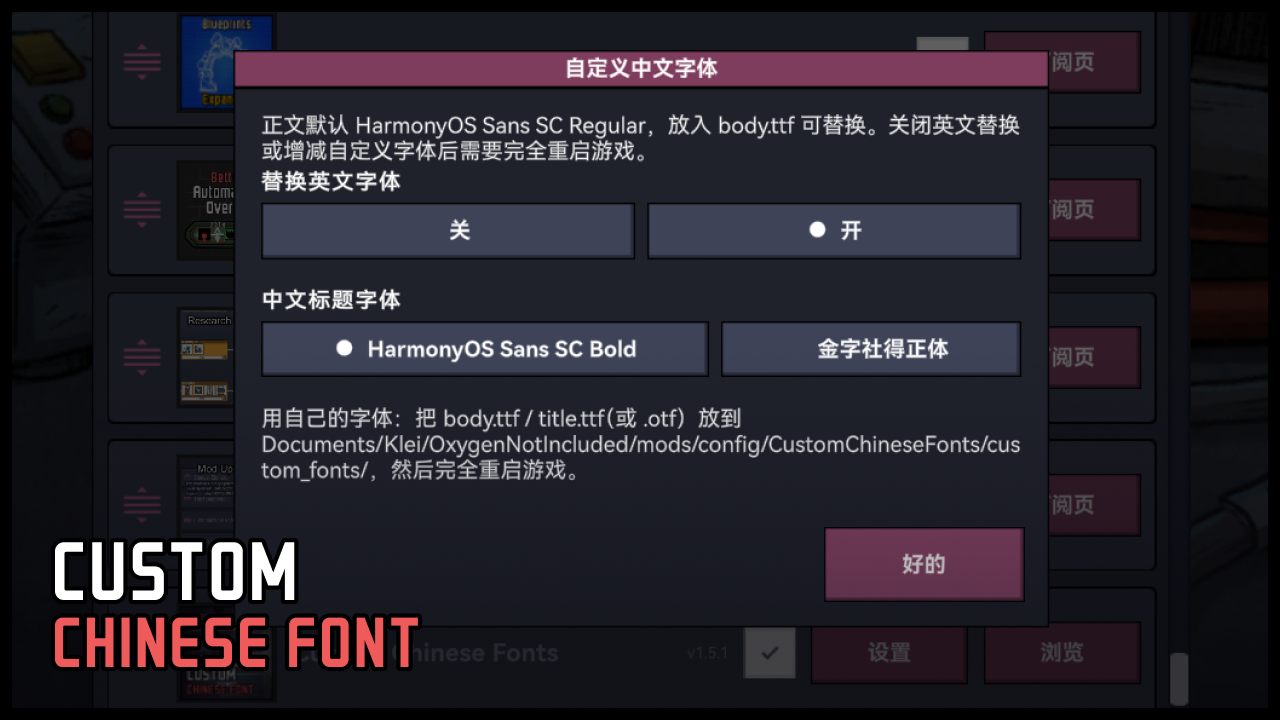
Custom Chinese Fonts
Enhance Your Oxygen Not Included Experience with Custom Chinese Fonts
Immerse yourself further into the intricate world of Oxygen Not Included with the Custom Chinese Fonts mod. This powerful modification allows duplicant colony managers to personalize the in-game text for a more visually appealing and comfortable experience, especially for those who prefer or require simplified Chinese characters.
Tailored Text Options
The Custom Chinese Fonts mod primarily focuses on replacing the default simplified Chinese user interface fonts. At its core, the mod utilizes the sleek and modern HarmonyOS Sans SC font family. This ensures that your colony’s operational logs, research notes, and status updates are rendered with clarity and style.
Key Features at a Glance
- Body Text: Simplified Chinese body text defaults to the clean HarmonyOS Sans SC Regular font.
- Title Text: Titles are presented in HarmonyOS Sans SC Bold by default, offering a clear hierarchy. Additional options, including Jinzishe Dezheng and custom file support, are available via the in-game settings.
- English Font Support: While primarily focused on Chinese characters, the mod includes an optional setting to replace English fonts with GRAYSTROKE or Roboto for a unified look across all text elements.
Personalize Your Interface